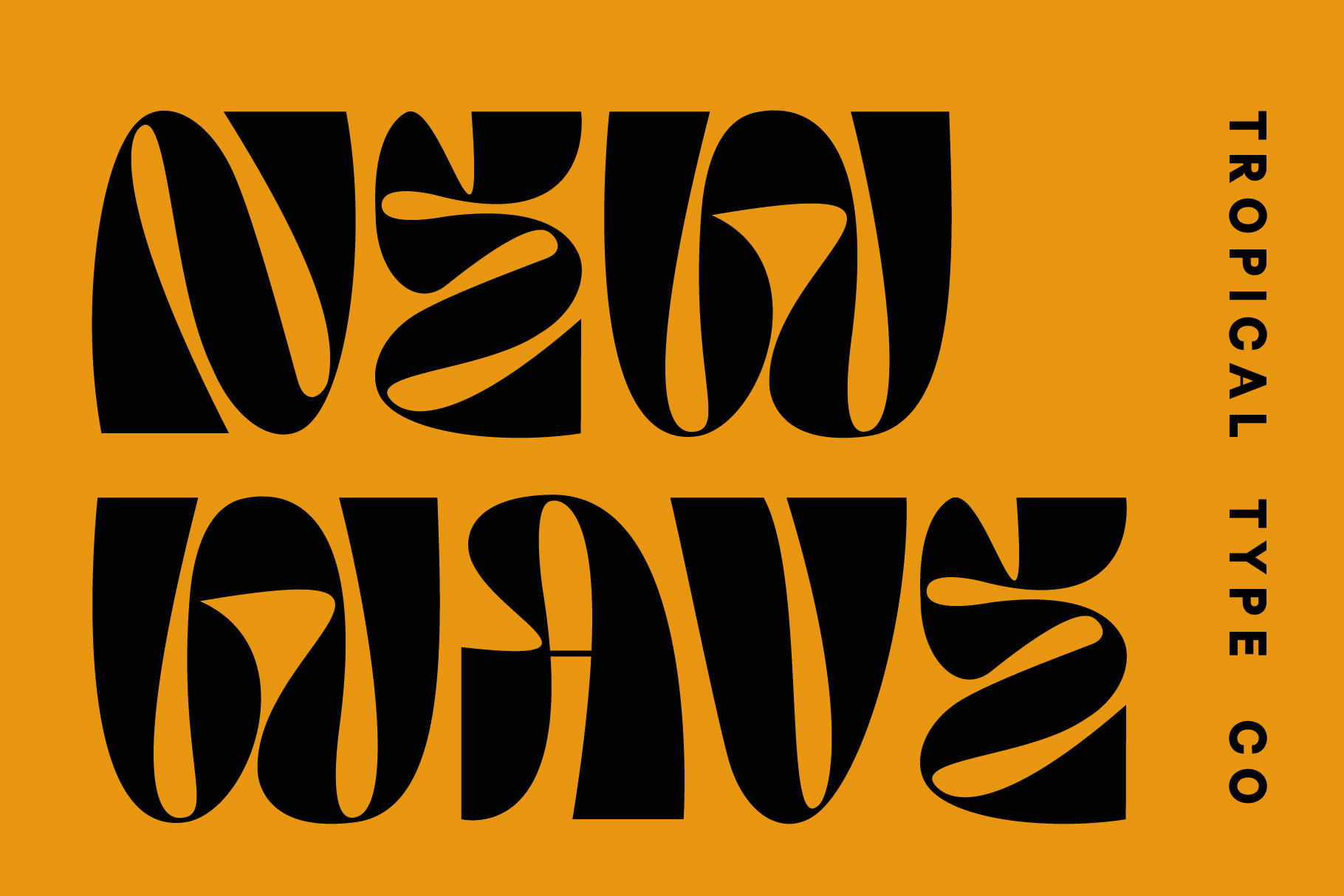
NEW WAVE - display font
I made a new font that is wavy and it's called New Wave. An experimental font thats lots of fun. A little bit cool but not too cool. A bit cool, a bit fun. New Wave. Buy it if you like!